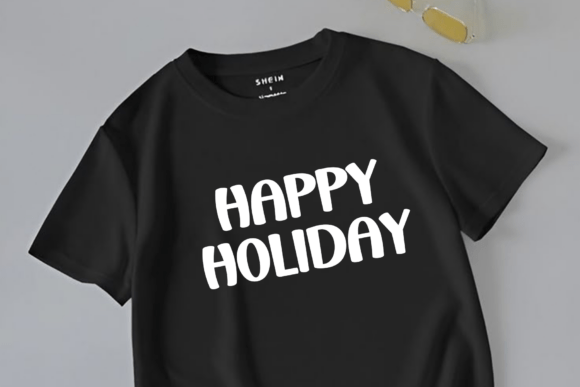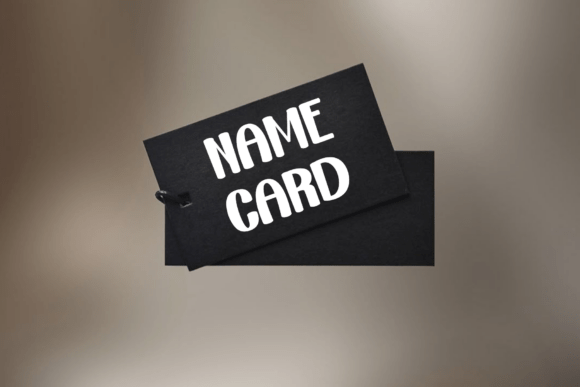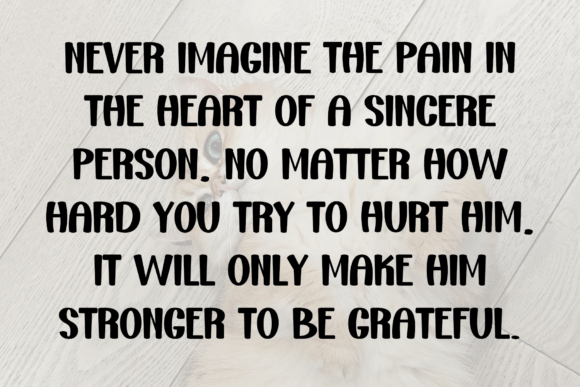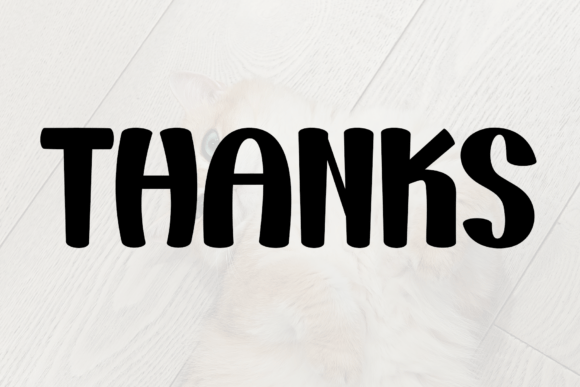
Introduction to Hello Charm Font
Have you ever found yourself in the midst of a creative project, pouring over fonts and designs, searching for the perfect combination to bring your vision to life? It’s a moment we’ve all experienced, and one that can be both exhilarating and frustrating. But what if you stumbled upon a font that perfectly captures the essence of your idea, elevating your design from good to great? That’s where the Hello Charm Font comes in, a timeless and elegant handwritten font that’s sure to make your design shine.
As a valuable resource for designers, the Hello Charm Font offers a unique blend of style and sophistication, making it an ideal choice for creating eye-catching logos, branding, and quotes. With its beautiful and transparent background, this font is a must-have for any design project, and the best part? It’s available for free download, making it an accessible and high-quality design resource for creatives of all levels.
Key Features of Hello Charm Font
- High-quality design resource ideal for creative projects requiring a touch of elegance.
- Unique, hand-drawn design with a transparent background, allowing for seamless integration into any design project.
- Perfect for use in a variety of creative projects, including logos, branding materials, and editorial content.
- Designed to be versatile and adaptable, making it an excellent addition to any design resource library.
Honest Review: Hello Charm Font
As a designer, I’m always on the lookout for high-quality design resources to elevate my creative projects. Recently, I had the chance to try out the Hello Charm Font, and I’m excited to share my honest review with you.
What works well: ✨ The font is incredibly versatile, with a range of styles and weights that make it perfect for a variety of design projects. The transparent background feature is also a game-changer, allowing me to easily overlay the font on top of images or other design elements. The font is also available for free download, which is a definite bonus!
- Transparent background feature for easy overlaying
Limitations: ⚠️ One thing I noticed is that the font can be a bit tricky to read at small sizes. I also wish there were more language support options available.
Overall impression: I’m really impressed with the Hello Charm Font, and I think it’s a great addition to any designer’s toolkit. While it may have a few limitations, the font’s versatility and high-quality design make it well worth checking out.
Tips for Getting the Most Out of Hello Charm Font
Use the Hello Charm Font in combination with other design elements, such as images or shapes, to create a visually appealing design. Experiment with different font sizes and colors to achieve the desired effect.
The Hello Charm Font is suitable for a variety of creative projects, including invitations, social media graphics, and marketing materials. Its high quality features and transparent background make it an ideal choice for designers looking to create unique and eye-catching designs.